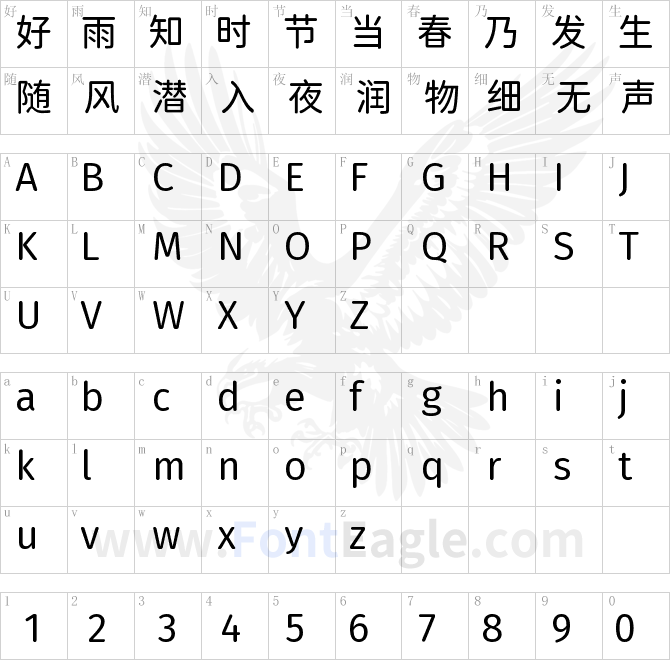
未来圆SC Regular.ttf Base Font Information
- Font name:未来圆SC
- Font Subfamily ID:未来圆SC:Version 1.00
- Font Full Name:未来圆SC
- Font Version:Version 1.00;September 13, 2020;FontCreator 11.5.0.2422 32-bit
- Postscript:SC
- Font Copyright:微信公众号-拾陆字